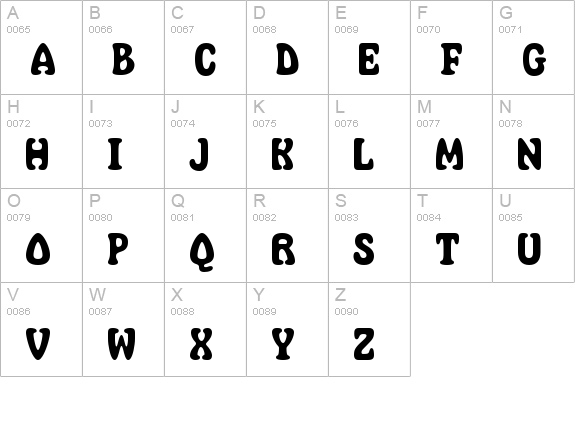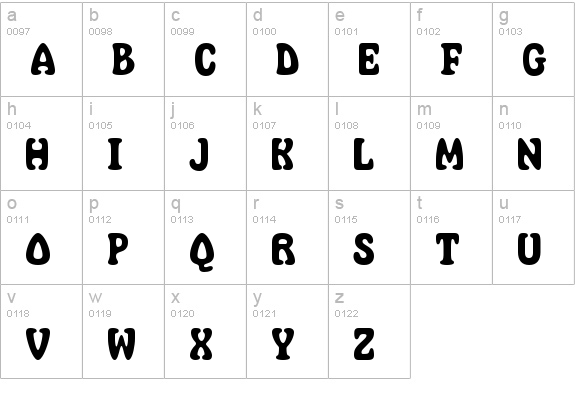
Mahavishnu Font Details
Mahavishnu font is a stunning and elegant typeface that exudes sophistication and creativity. With its unique design and sleek lines, Mahavishnu is perfect for adding a touch of modern flair to any project. This versatile font can be used for a variety of purposes, from branding and advertising to invitations and social media graphics. What sets Mahavishnu font apart is not only its aesthetic appeal but also its accessibility. This exceptional font is available for free download at FontsMarket.com, making it easy for anyone to access and use in their designs. Whether you're a professional designer or a casual creator, Mahavishnu font is a valuable addition to your font collection. Add a touch of elegance and style to your projects with Mahavishnu font today.